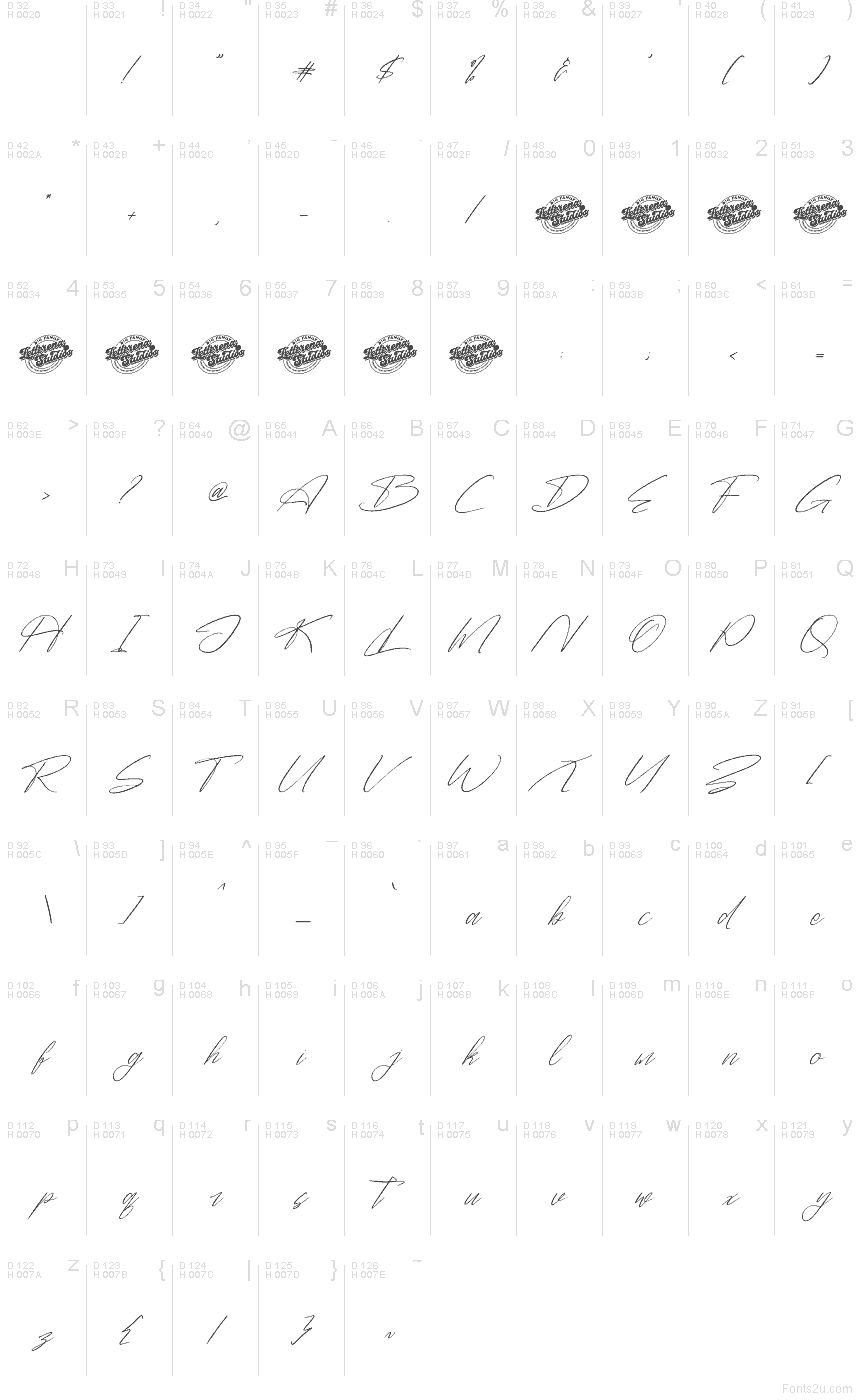
Danymeka DEMO VERSION Italic
Danymeka Italic font by Letterena Studios is a free handwritten signature typeface that captures the sweep and elegance of ink on smooth paper. Its long, looping strokes and gentle slant feel airy yet controlled, like a confident autograph repeated with ease. The Danymeka family’s refined rhythm and fine hairline texture give every word a soft, whisper-like presence that still reads clearly at a glance.
Using Danymeka Italic, your branding instantly takes on a bespoke, personal touch. This free font works beautifully for logo signatures, wedding invitations, name-focused business cards, boutique packaging, photography watermarks, and stylish social media overlays. It shines when set large with generous letter spacing, paired with a clean sans serif for supporting text to keep layouts polished and readable.